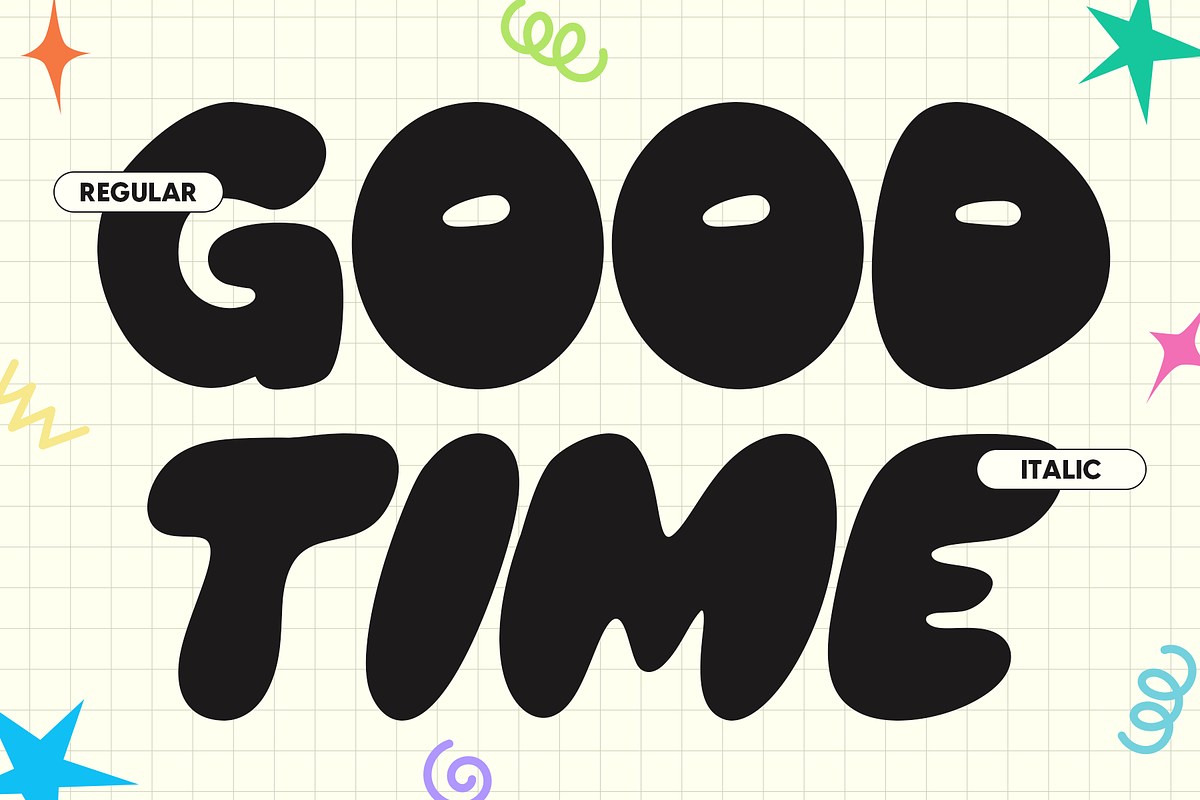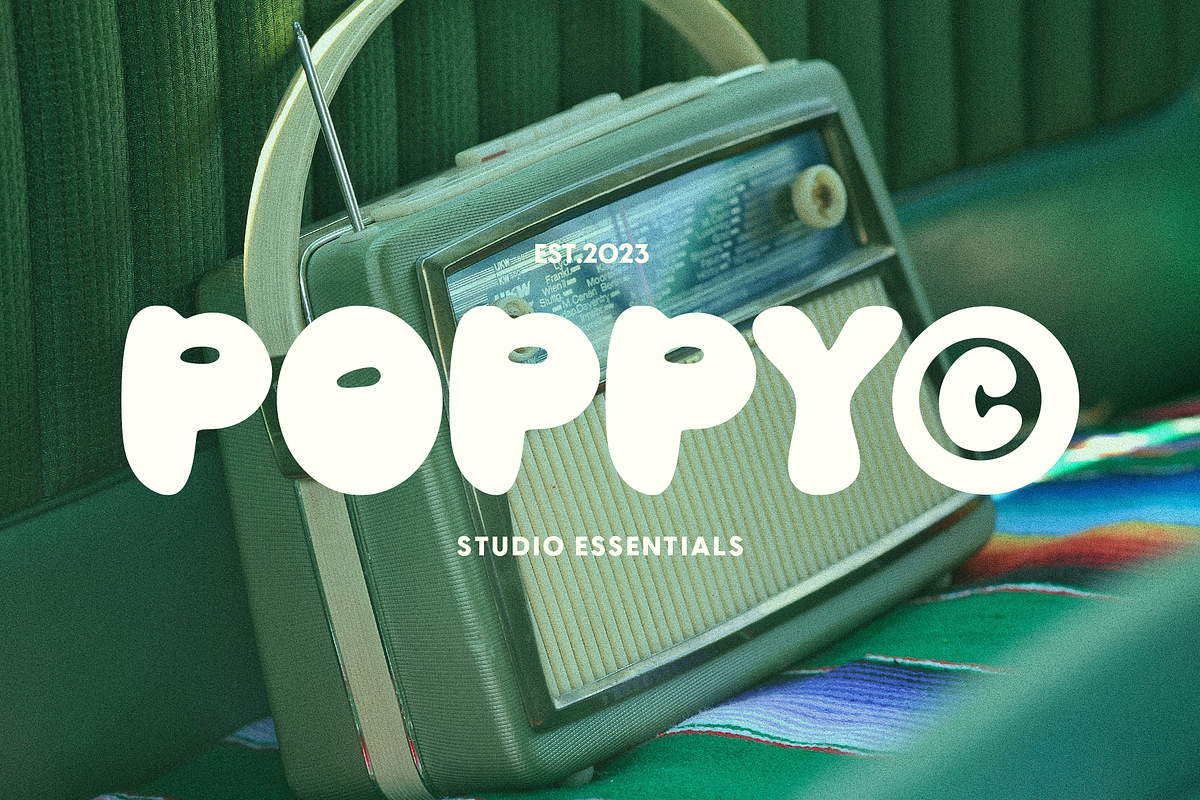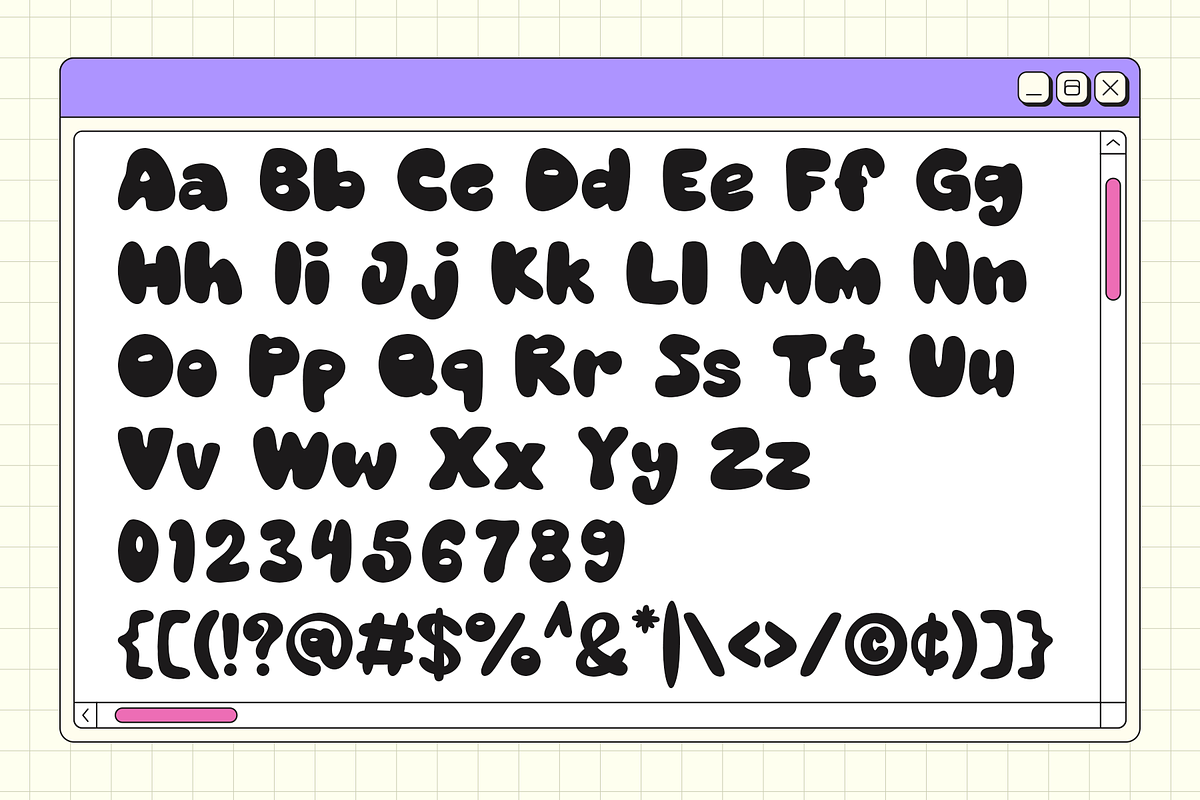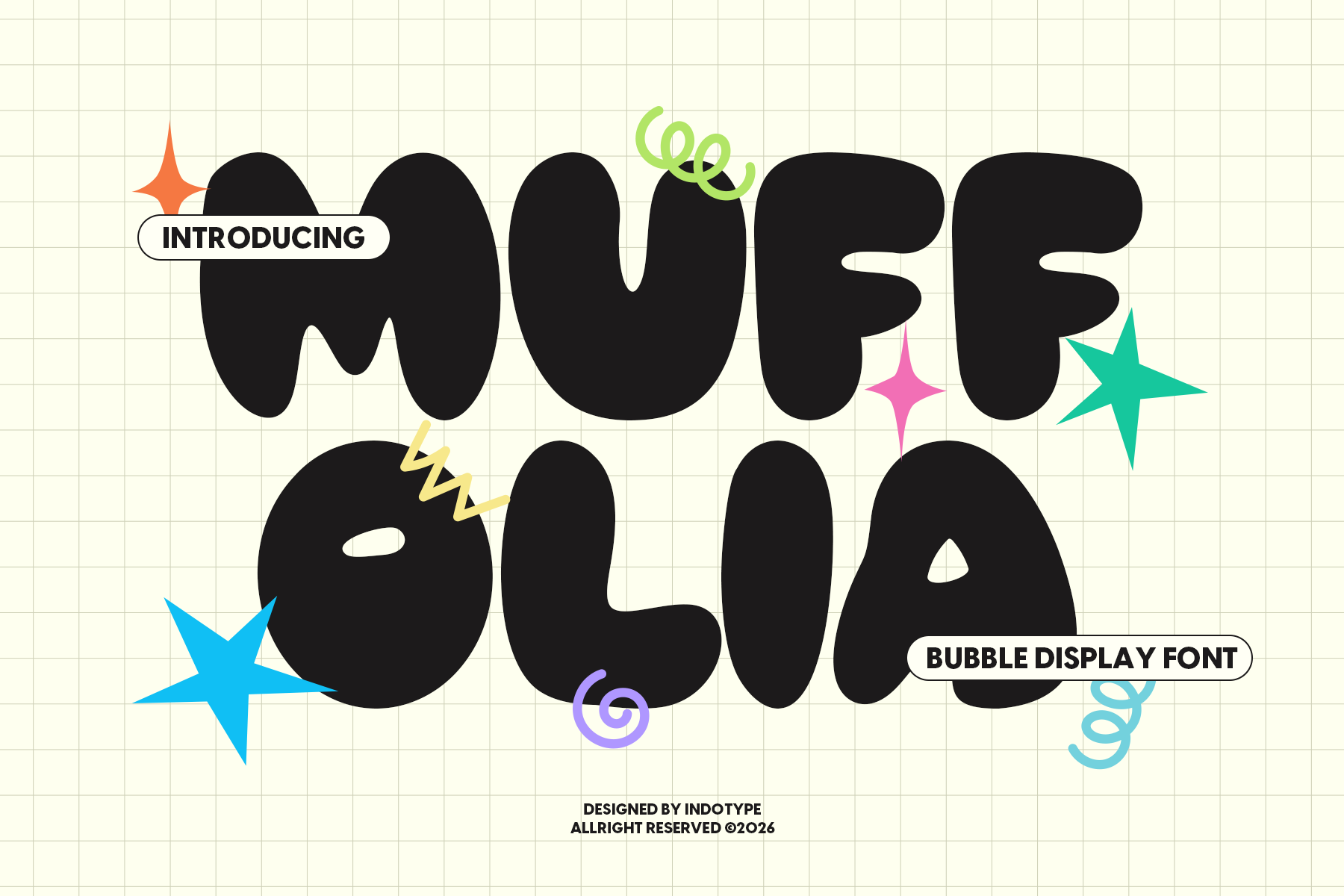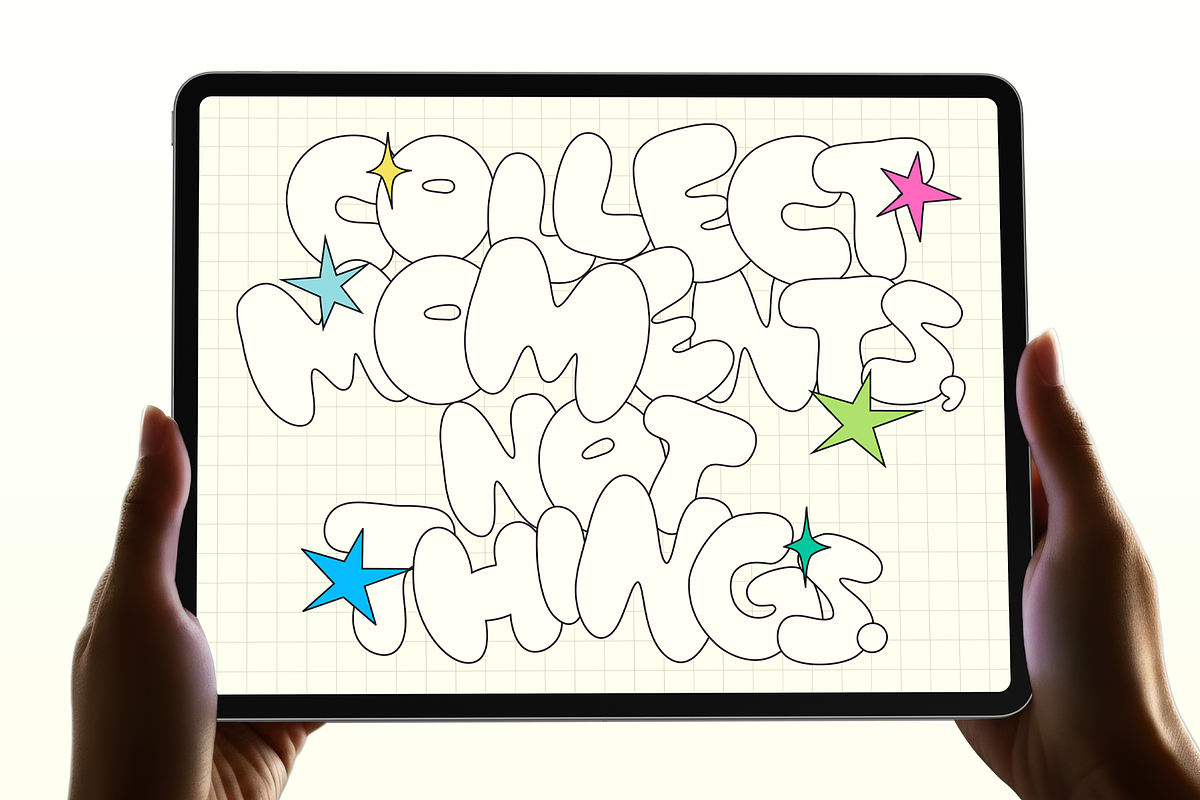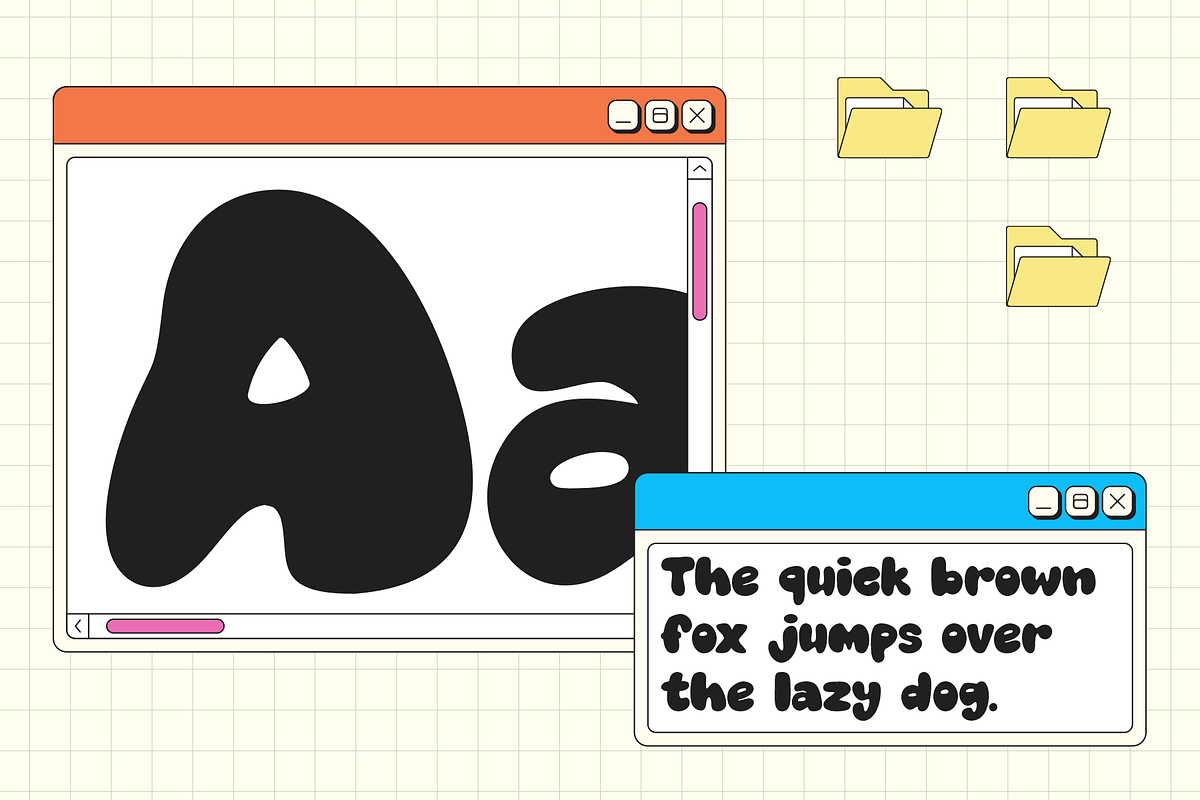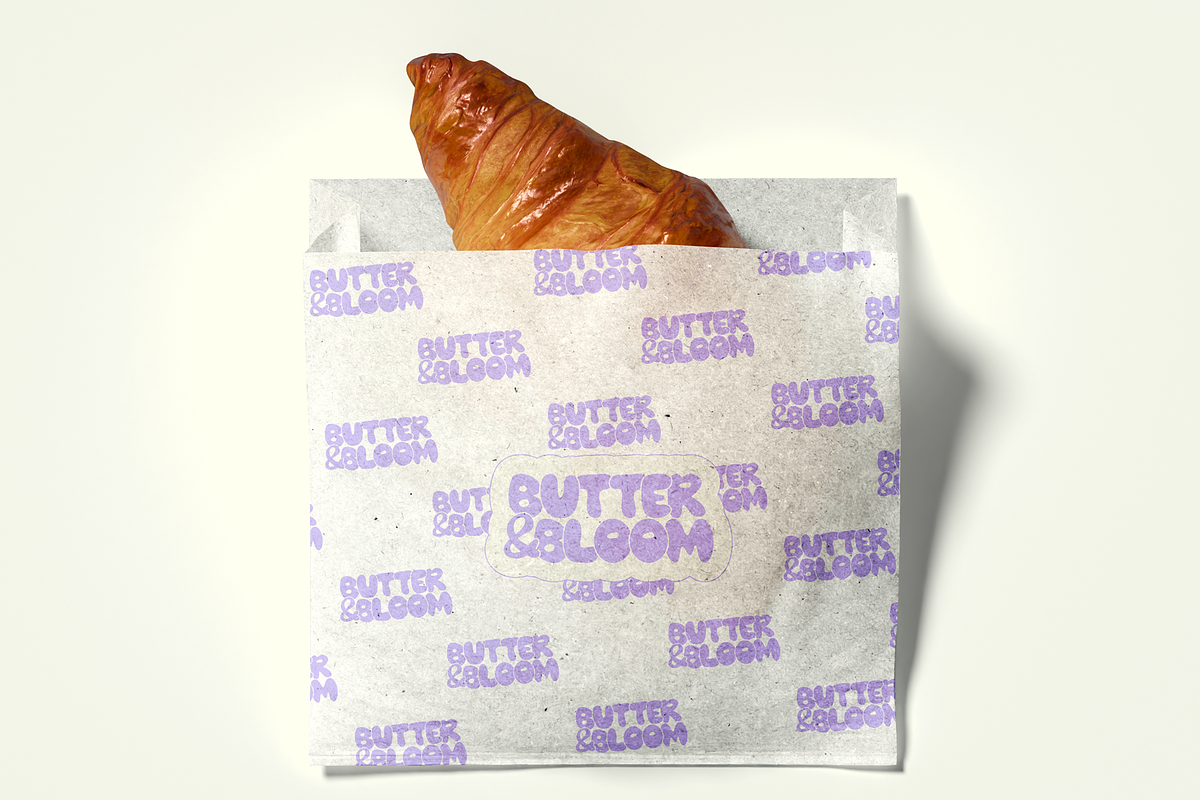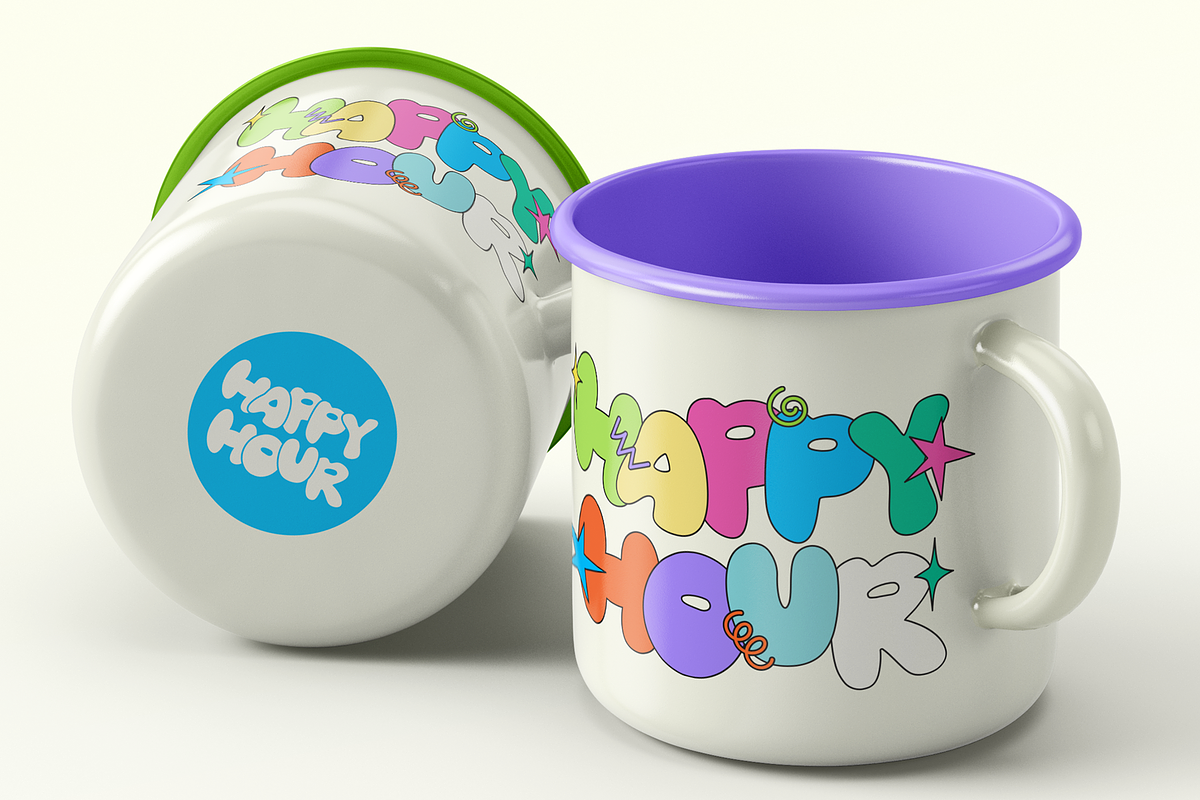
MUFFOLIA - Playful Bubble Font
Muffolia is an irresistibly cute and playful bubble display font that brings a sense of joy, whimsy, and softness to any design. Characterized by its plump, rounded letterforms, smooth curves, and pillowy texture, this typeface feels like it was blown from sugary bubblegum or molded from soft clay. Every character is designed with friendly, approachable energy—perfect for capturing attention with a smile. Ideal for projects that need a lighthearted, youthful touch, Muffolia excels in children's branding, playful packaging, event flyers, social media graphics, and any design aimed at spreading happiness. Its bubbly personality makes it impossible to ignore and instantly memorable.
- Ideal for: Children's Brands & Products, Playful Packaging, Party & Event Flyers, Social Media Graphics, Toy & Game Design, Kid-Friendly Apps & Websites.
- Classification: Display, Bubble, Rounded, Decorative.
- Attributes: Playful, Cute, Soft, Friendly, Joyful, Youthful, Approachable.